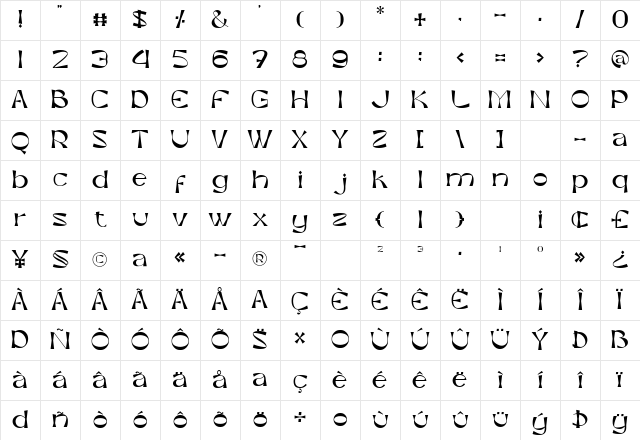
Complete Silkeborg Regular glyph index. Displaying only characters natively supported by Silkeborg Regular font.
Silkeborg is a composed and adaptable typeface that performs quietly and consistently across a wide range of design contexts.
Who designed the Silkeborg Regular font?
This font was published by Elevencreative. Check the technical specs section for copyright and designer details.